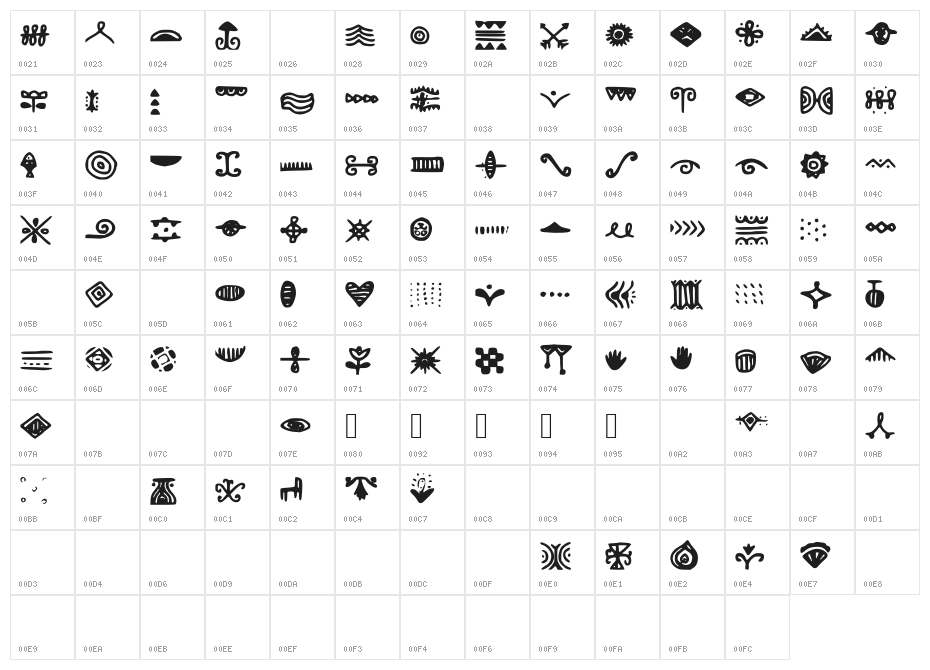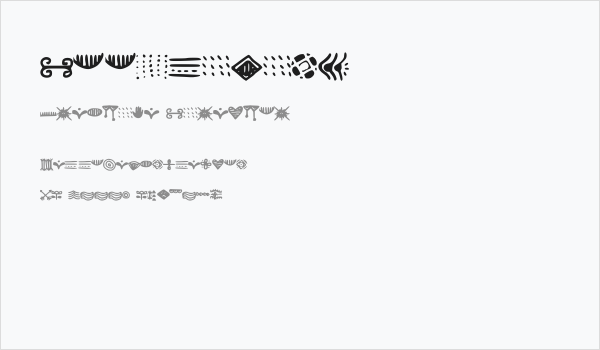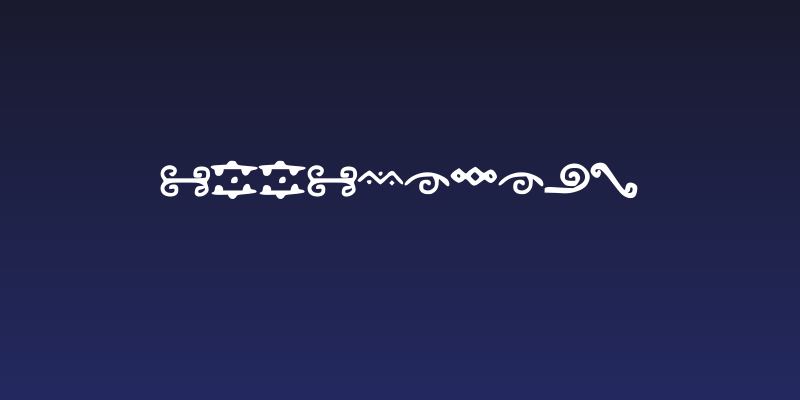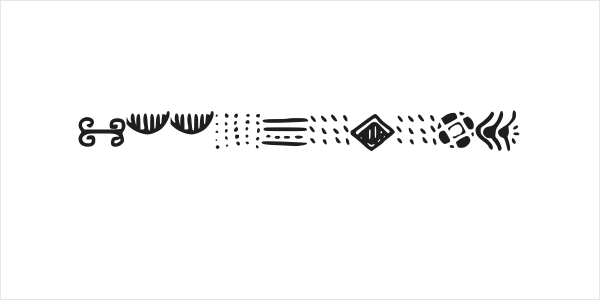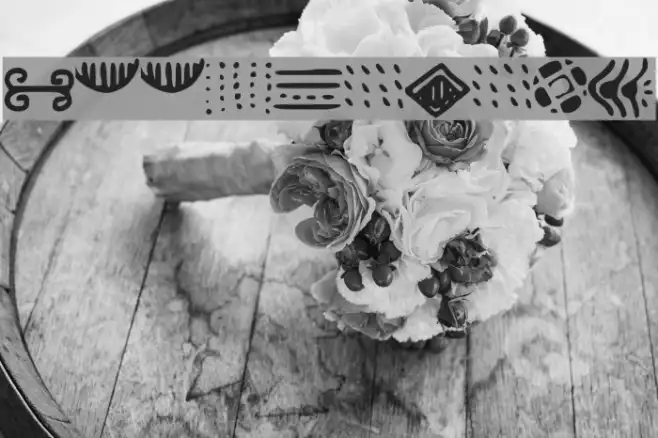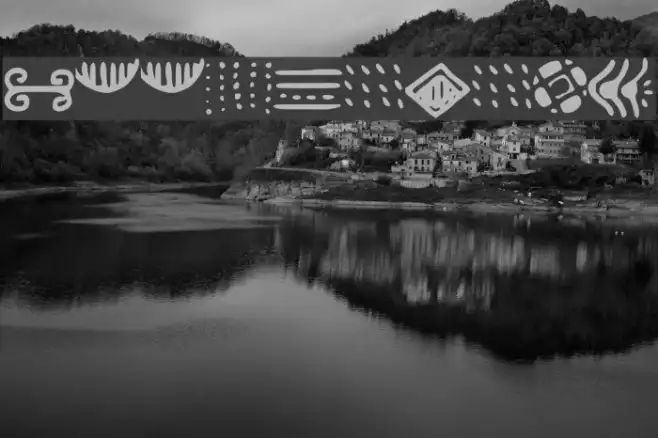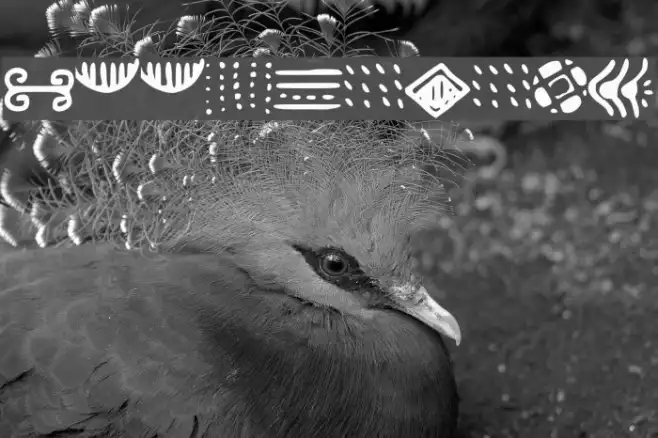
Doodlizing Font
Doodlizing Description
This collection features a series of whimsical and playful doodle-like symbols, each with a unique and abstract design. The characters are highly decorative, with intricate patterns and shapes that evoke a sense of creativity and spontaneity. The symbols vary widely, including swirls, stars, hearts, and geometric shapes, each crafted with bold, solid lines. The overall appearance is lively and dynamic, making it suitable for projects that aim to convey a sense of fun and artistic flair. The designs are consistent in their hand-drawn style, offering a cohesive yet diverse set of elements that can be used to enhance visual interest in various creative applications.
| Use Case | Logos, Artistic projects, Decorative elements |
| Proposed Projects | Ideal for creative projects such as children's book illustrations, playful branding, artistic posters, and decorative stationery. |